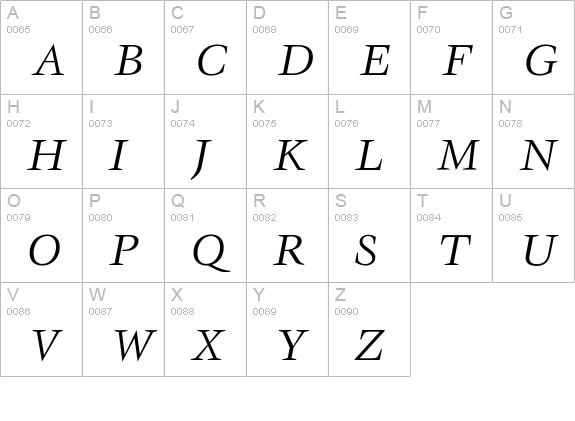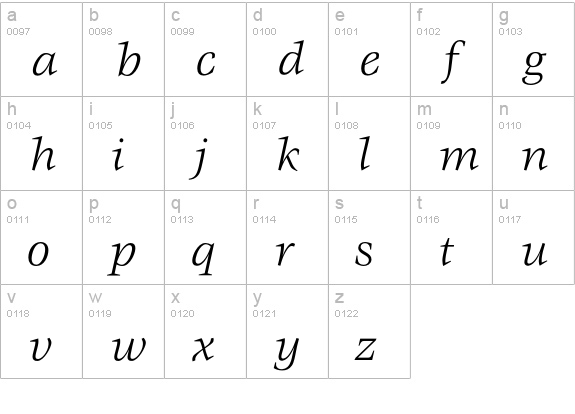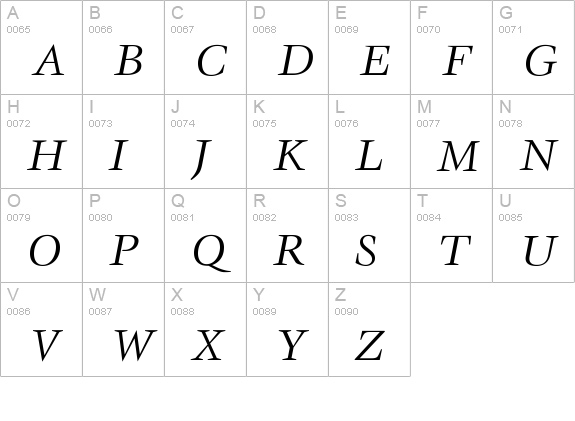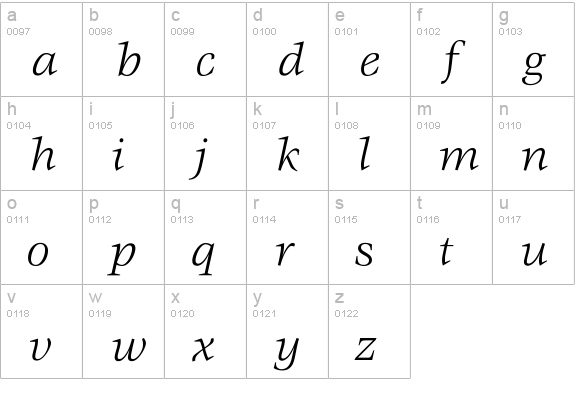
VeljovicBookItalic Font Details
VeljovicBookItalic is a stunning and sophisticated font that exudes elegance and refinement. Designed by the renowned typographer Jovica Veljovic, this italic font possesses a unique charm that is sure to captivate any reader. With its graceful curves and delicate slant, VeljovicBookItalic brings a touch of sophistication to any design project. Whether used in a logo, a book cover, or even a wedding invitation, this font adds a subtle sense of luxury and class. One of the most remarkable aspects of VeljovicBookItalic is that it is freely available to download. FontsMarket.com offers this exquisite font, allowing designers and creatives from all walks of life to access and utilize its beauty. This generosity enables even the most budget-conscious projects to benefit from the elegance and refinement that VeljovicBookItalic has to offer. The versatility of VeljovicBookItalic is another aspect that sets it apart. This font seamlessly blends with both serif and sans-serif typefaces, creating stunning combinations that enhance the overall visual impact. Its clean and precise letterforms lend themselves well to both small and large sizes, ensuring legibility and readability in any format. When using VeljovicBookItalic, designers have the opportunity to elevate their work to new heights. With its timeless appeal and effortlessly chic aesthetic, this font is sure to make a lasting impression. Whether for personal or commercial use, VeljovicBookItalic is a font that adds a touch of sophistication and refinement to any project.